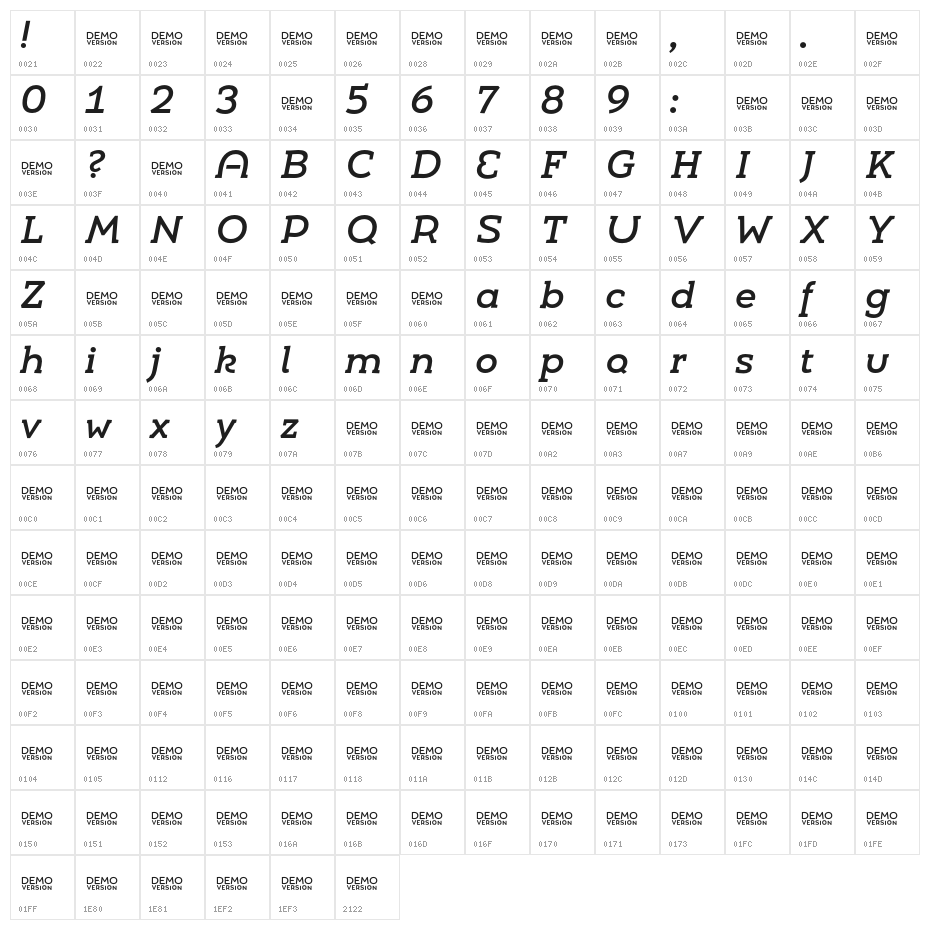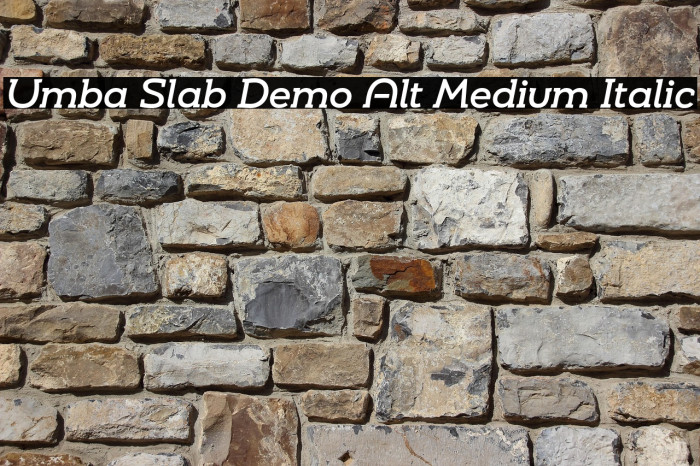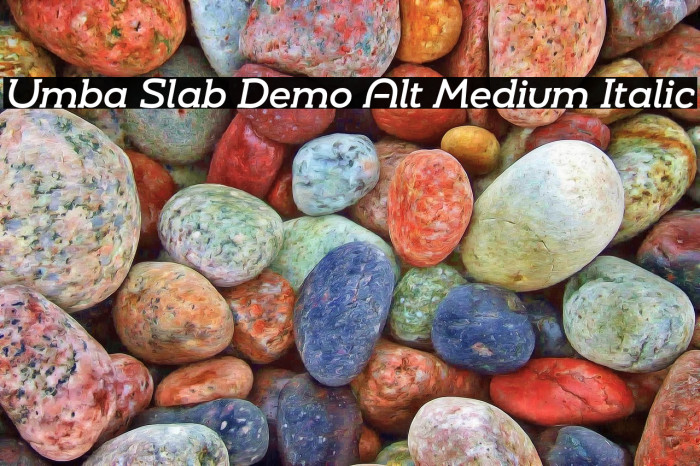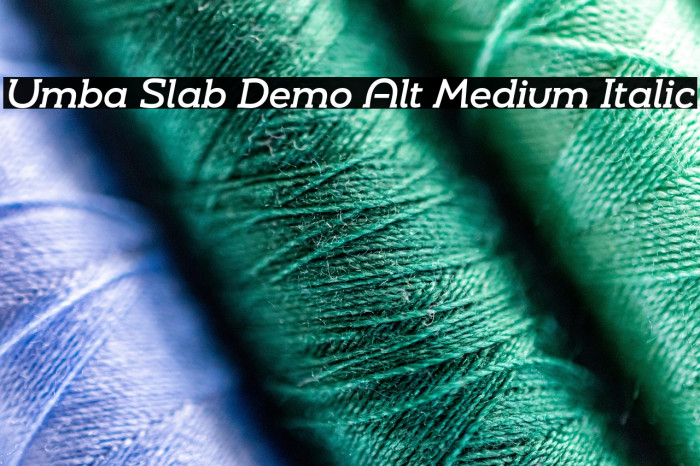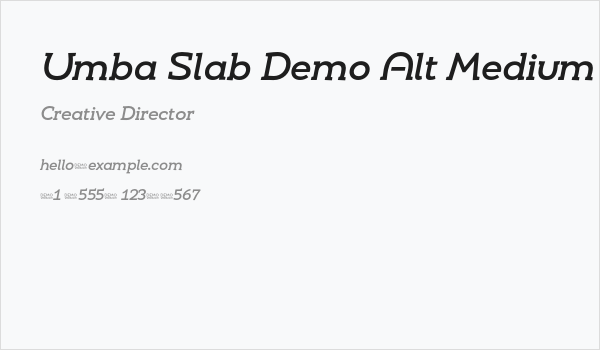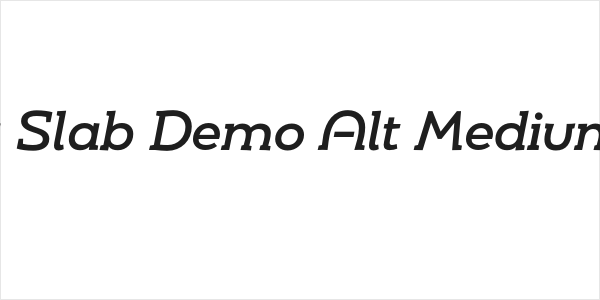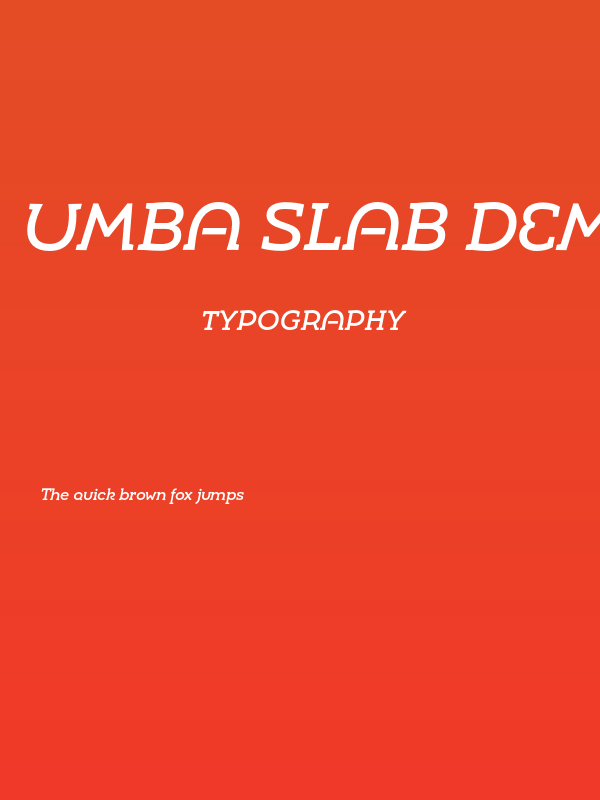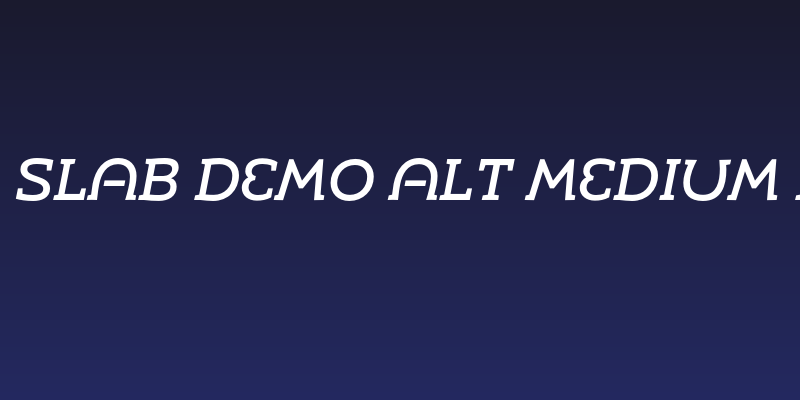
Umba Slab Demo Alt Medium Italic Font
Umba Slab Demo Alt Medium Italic Description
This font exhibits a modern and stylish slab serif design with a distinct italic slant, giving it a dynamic and forward-moving appearance. The characters are well-balanced, with a medium weight that provides a solid presence without being overly bold. The uppercase letters are strong and assertive, while the lowercase letters maintain a smooth and flowing form. The numerals are clear and easily distinguishable, making them suitable for various applications. Special characters are included, maintaining the font's cohesive style. The overall aesthetic is contemporary, making it versatile for both digital and print media.
| Proposed Projects | Ideal for branding, editorial design, advertising, and web design projects that require a modern and stylish touch. |